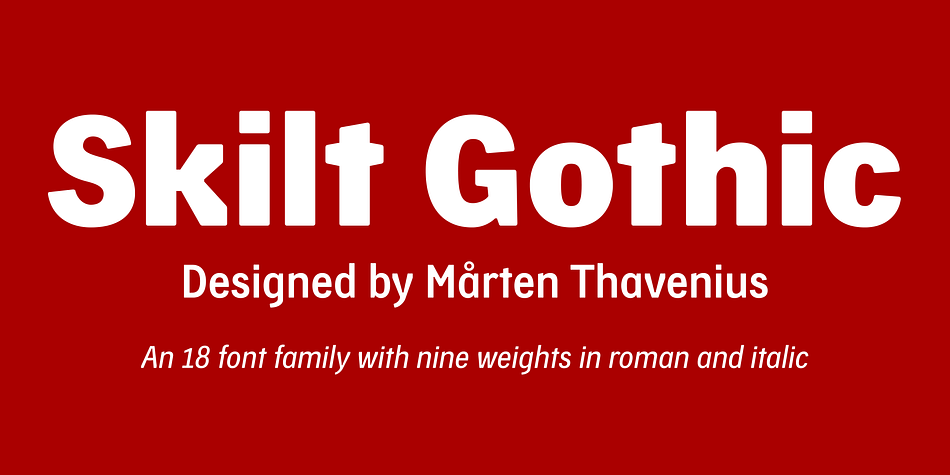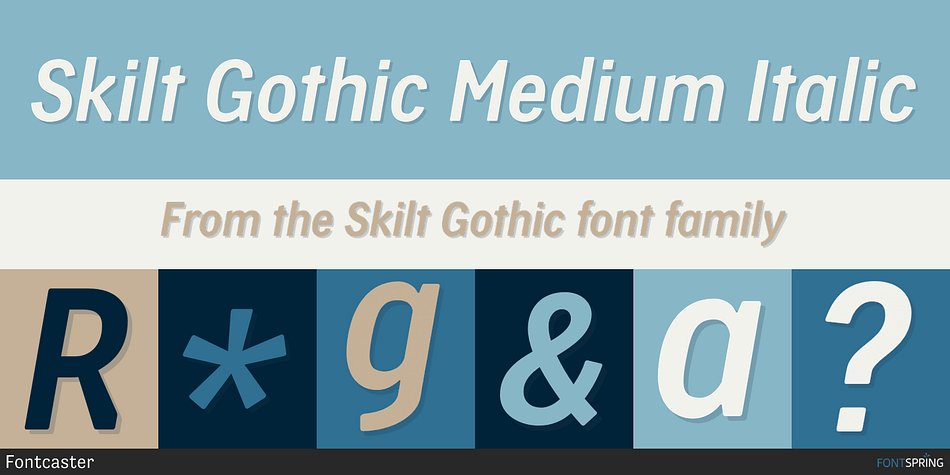
Skilt Gothic Medium Italic
Designed by Mårten Thavenius, Skilt Gothic is a sans serif font family. This typeface has eighteen styles and was published by Fontcaster.
In the 1920s the Danish architect, printer and designer Knud V.
In the 1920s the Danish architect, printer and designer Knud V. Engelhardt made some striking typefaces for signage. The Swedish typeface designer Mårten Thavenius used some structural elements from the work of Engelhardt when he designed Skilt Gothic—a typeface to be used for display and text settings in the 21st century.
Skilt Gothic comes in nine weights—thin, light, regular, medium, semibold, bold, extrabold, black and ultra—in roman and italic respectively. A wide range of glyph alternatives are accessible through OpenType features. Skilt Gothic has support for more than 50 languages.